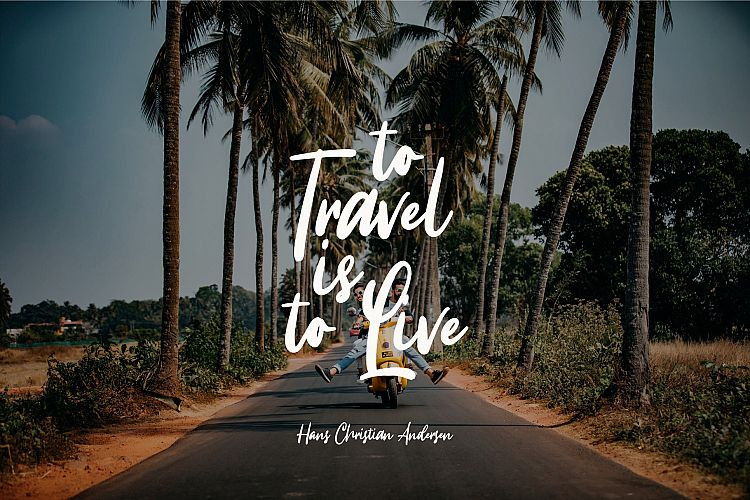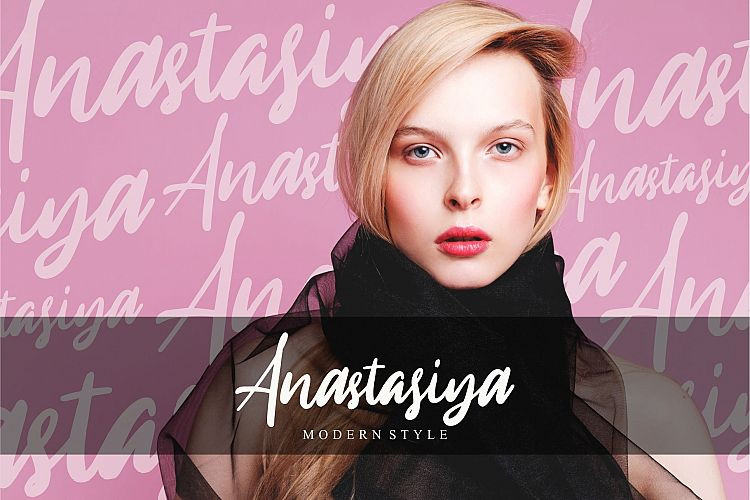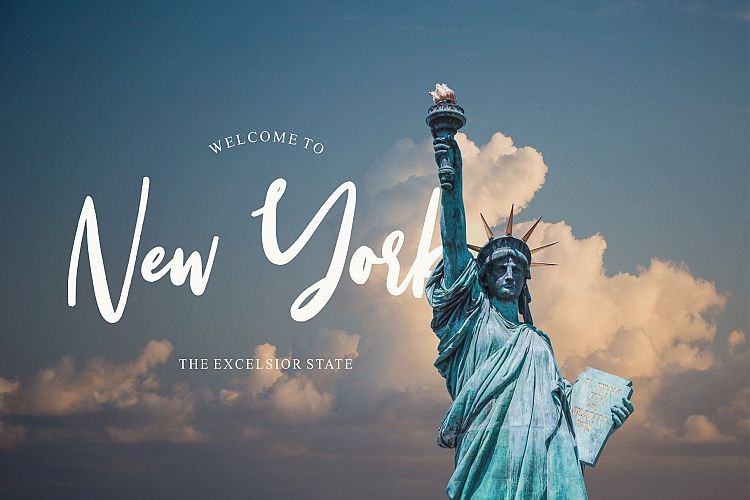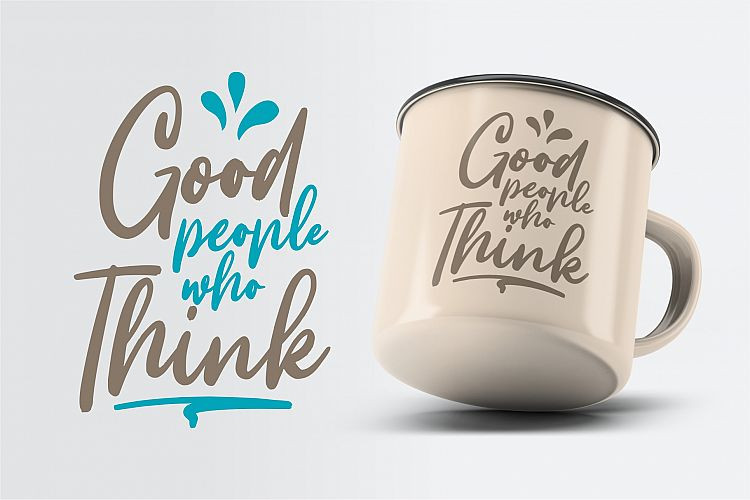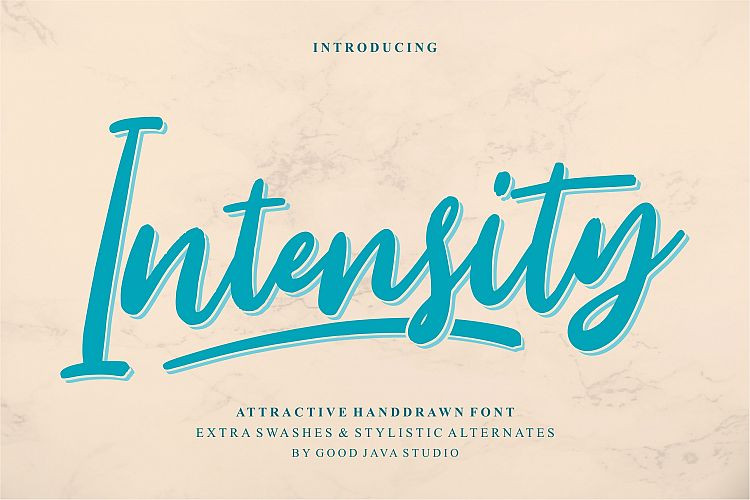
Intensity Script Font
Introducing Intensity Font! It is designed and shared by Good Java Studio. It is a natural & modern handwritten font. I’ts Perfect for logo, invitation, stationery, wedding designs, social media posts, advertisements, product packaging, product designs, label, photography, watermark, special events or anything.